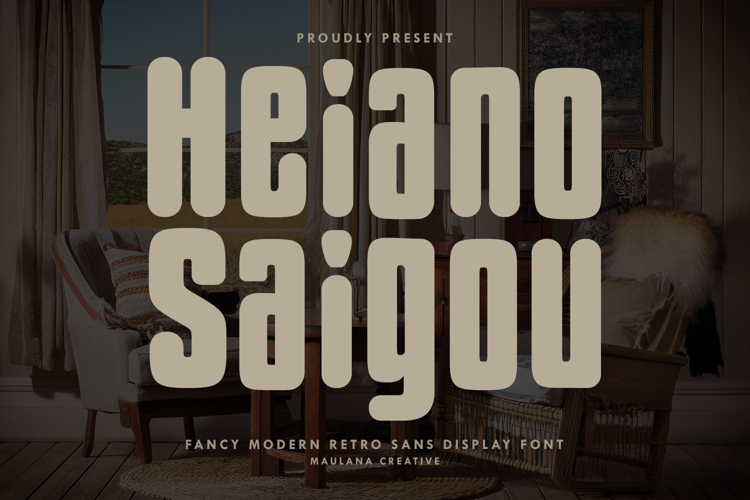
Heiano Saigou Modern Retro Display Sans Serif Font
Heiano Saigou is a fancy modern-retro sans display font that perfectly bridges the gap between classic vintage aesthetics and contemporary clean lines. Featuring a bold, condensed structure with smooth rounded corners, this font is designed to make a powerful statement while maintaining a friendly and approachable vibe.
Whether you are working on industrial branding, chic editorial layouts, or vibrant social media, Heiano Saigou provides the versatility you need. Its unique character shapes especially in the lowercase descenders add a custom, hand-lettered feel to any project.